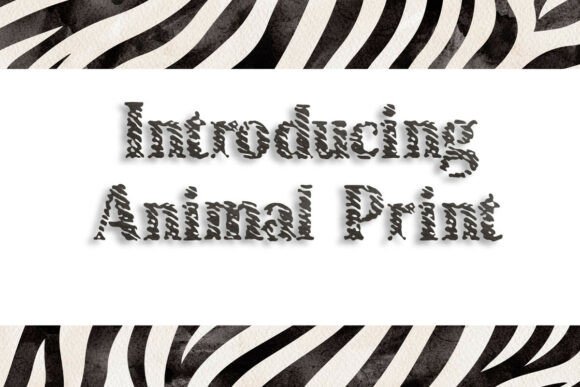
Unlock Creative Potential with Animal Print Font: Elevate Your Designs to Wild Heights
In the realm of digital design, fonts play a pivotal role in conveying messages, evoking emotions, and capturing attention. Among the myriad of font styles available, Animal Print Font stands out as a unique and versatile choice, designed to infuse creativity and personality into various projects. Whether you’re a DIY enthusiast, a professional designer, or a social media influencer, this elegant font is poised to revolutionize your creative expressions.
What is Animal Print Font?
Animal Print Font is an exquisite typeface crafted with the intention of amplifying your creative expressions. Its distinctive animal print pattern lends a touch of wild elegance to any design, making it perfectly suited for a wide array of applications. From stunning shirt designs and captivating stickers to powerful branding and artistic magazine publications, this font is designed to leave a lasting impression.
Key Features of Animal Print Font
- SVG Compatibility: One of the standout features of Animal Print Font is its compatibility with SVG (Scalable Vector Graphics) format. This allows for high-quality scaling without any loss of resolution, making it ideal for projects that require versatility and precision.
- Wide Range of Applications: The font’s adaptability makes it suitable for various creative projects, including greeting cards, Cricut projects, posters, and more.
- Social Media Friendly: In the digital age, having a unique voice on social media platforms is crucial. Animal Print Font offers a distinctive style that can make your posts stand out, engaging your audience more effectively.
- User-Friendly: Designed with usability in mind, this font is accessible to both DIY enthusiasts and professional designers, ensuring that anyone can unlock their creative potential.
Applications of Animal Print Font
The versatility of Animal Print Font is one of its most compelling attributes. Here are some of the many ways you can utilize this dynamic font:
1. Stunning Shirt Designs
Transform plain t-shirts into eye-catching fashion statements with Animal Print Font. The unique animal print design adds a stylish edge that’s sure to turn heads.
2. Captivating Stickers
Whether for personal use or as part of a marketing campaign, stickers designed with Animal Print Font are sure to captivate. Their distinctive look makes them perfect for laptops, water bottles, or any surface you want to customize.
3. Powerful Branding
Establish a strong brand identity with Animal Print Font. Its unique style can help your brand stand out in a crowded market, conveying a message of creativity and boldness.
4. Artistic Magazine Publications
Elevate your magazine or digital publication with the sophisticated look of Animal Print Font. It’s perfect for headings, subheadings, or even body text, adding a touch of elegance to your content.
5. Extraordinary Greeting Cards
With SVG compatibility, you can transform ordinary greeting cards into extraordinary ones. Add a personal touch with custom designs that speak to the recipient.
6. Innovative Cricut Projects
For Cricut enthusiasts, Animal Print Font opens up a world of creative possibilities. From custom vinyl decals to intricate paper crafts, this font can enhance any project.
7. Eye-Catching Posters
Create visually stunning posters for events, promotions, or artistic expressions. The bold and unique style of Animal Print Font ensures your poster won’t go unnoticed.
8. Unique Social Media Posts
In a sea of standard fonts, stand out on social media with Animal Print Font. Whether it’s a quote, an announcement, or a casual post, give it a wild twist that captures attention.
Why Choose Animal Print Font?
With so many fonts available, why should Animal Print Font be your go-to choice? Here are a few compelling reasons:
- Uniqueness: In a world where generic fonts are common, Animal Print Font offers a breath of fresh air with its distinctive style.
- Versatility: Whether for digital or print projects, this font adapts seamlessly, ensuring your designs look great across different mediums.
- Creativity: Animal Print Font is more than just a typeface; it’s a tool for creative expression. It invites you to experiment and push the boundaries of conventional design.
- Accessibility: Designed to be user-friendly, it’s an excellent choice for both beginners and seasoned designers looking for a hassle-free creative process.
Tips for Maximizing the Potential of Animal Print Font
To get the most out of Animal Print Font, consider the following tips:
- Experiment with Colors: While the animal print pattern is eye-catching, experimenting with different colors can further enhance your designs.
- Mix and Match: Don’t be afraid to combine Animal Print Font with other typefaces for a unique contrast that adds depth to your designs.